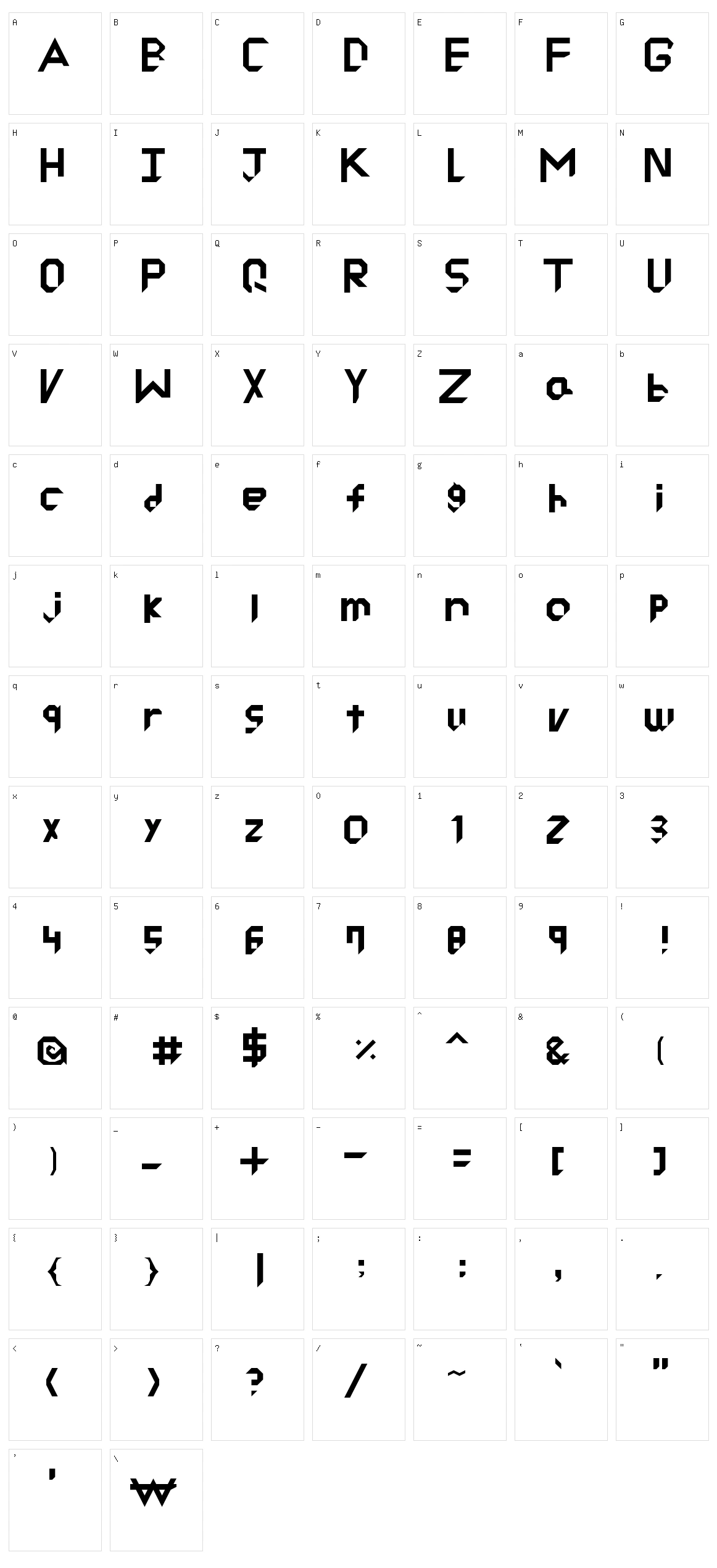
The free font Ryu Cutted is carefully designed by KwangMin Ryu, showcasing a thoughtful balance of creativity and usability and falls under the Square font style. When you download the ZIP file, it contains only 44.79 KB of font files, making it lightweight and quick to download. Please review the license details below to understand permitted usage and distribution rights. If license information is not available, we recommend using this font for personal projects only or contacting the author directly for commercial usage permissions.